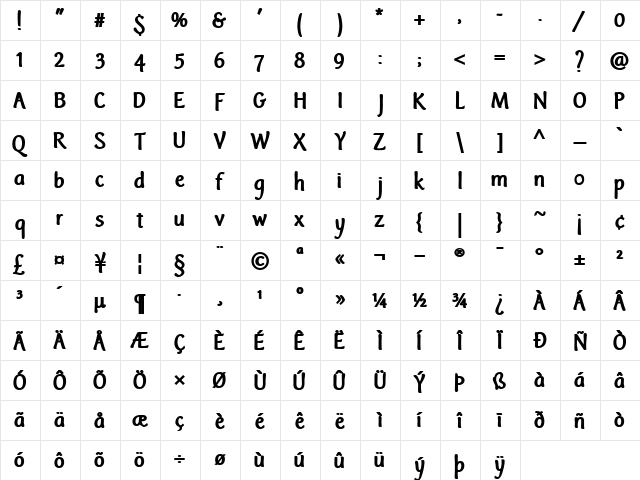
IJF0100 Bold
Design Context for IJF0100 Typeface
IJF0100 is a composed and adaptable typeface that performs quietly and consistently across a wide range of design contexts. Its bold stroke weight gives it real presence on the page.